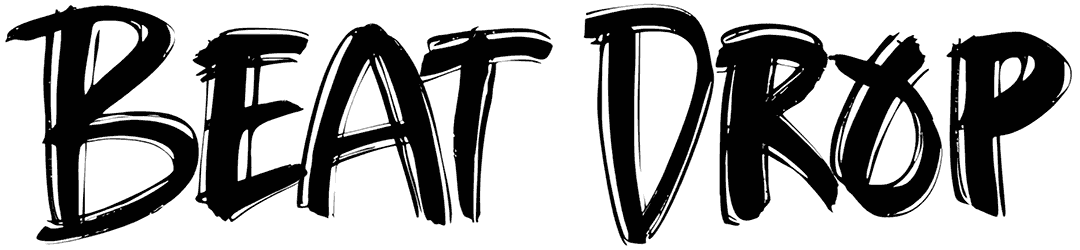
Beat Drop Font
If you are looking for a good-looking sport font, the Beat Drop is an excellent choice. This brush font has a spectacular design that you can use on several occasions, such as on posters, video games, and advertisements; however, it does not support lowercase letters.
The Beat Drop font’s letters have a curvy shape with rounded edges that feels energetic. This exciting font helps you neatly express the feeling behind your content; thus, do not hesitate to download it.